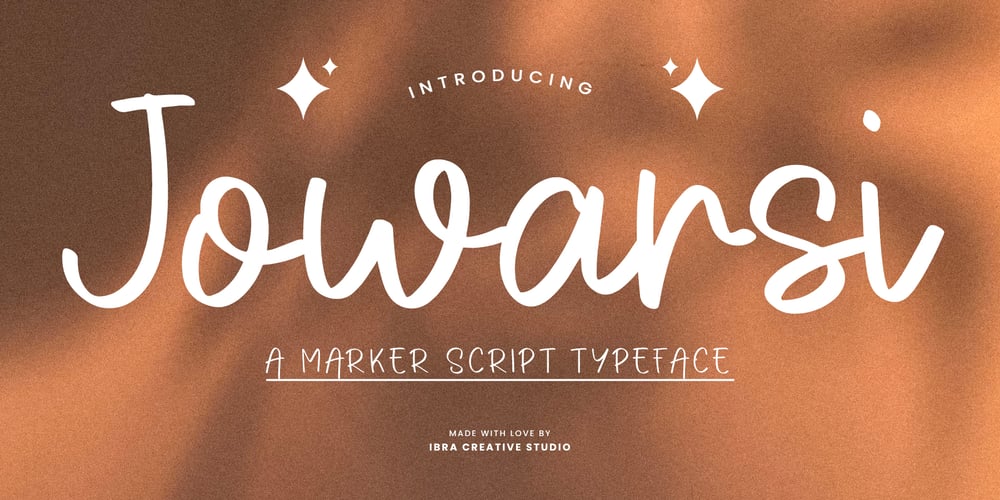
Jowarsi Font Family was designed by Roisatul Azizah and published by IbraCreative. Jowarsi contains 1 styles and family package options. Jowarsi – A Marker Script Typeface Jowarsi, a marker script typeface, exudes a sense of casual elegance with its fluid strokes and handwritten charm. Each letter in Jowarsi flows seamlessly into the next, creating a natural and dynamic rhythm that captures the spontaneity of hand-drawn script. Whether used for branding, invitations, or editorial designs, Jowarsi adds a touch of personality and warmth, inviting viewers to connect with its authentic and expressive character. With its versatile nature and effortless style, Jowarsi effortlessly elevates any project, infusing it with a sense of creativity and originality.Jowarsi is perfect for branding projects, logo, wedding designs, social media posts, advertisements, product packaging, product designs, label, photography, watermark, invitation, stationery, game, fashion and any projects.Fonts include multilingual support for; Afrikaans, Albanian, Czech, Danish, Dutch, English, Estonian, Finnish, French, German, Hungarian, Italian, Latvian, Lithuanian, Norwegian, Polish, Portuguese, Slovak, Slovenian, Spanish, Swedish.